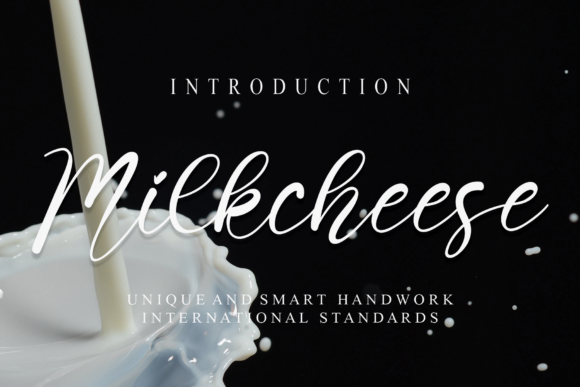
About Milkcheese Font
Milkcheese is a lovely and adorable script font. It can be added to plenty of creations that require a personalized, romantic touch. Add this cursive and well balanced font to your designs and you will love the final outcome.